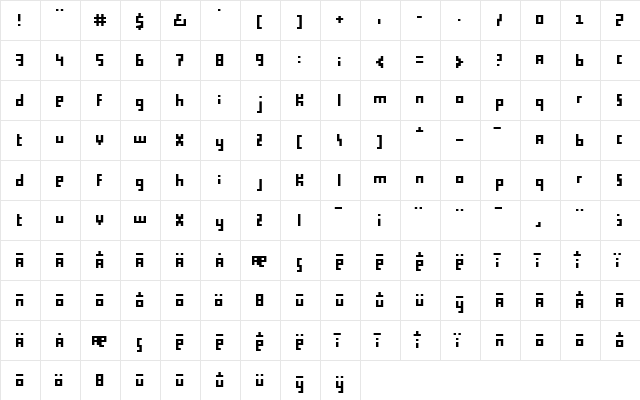
minimium Regular
| Foundry | Louis Rigaud |
| Designer | Louis Rigaud |
Design Context for minimium Typeface
minimium is a composed and adaptable typeface that performs quietly and consistently across a wide range of design contexts.